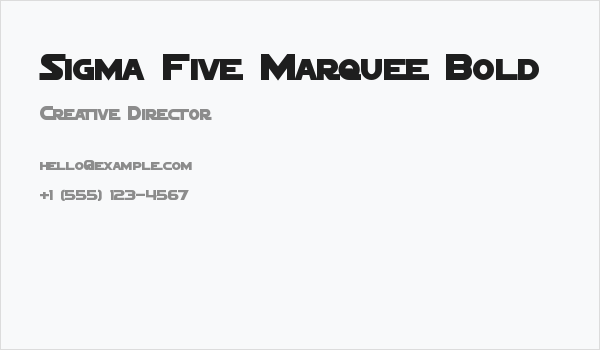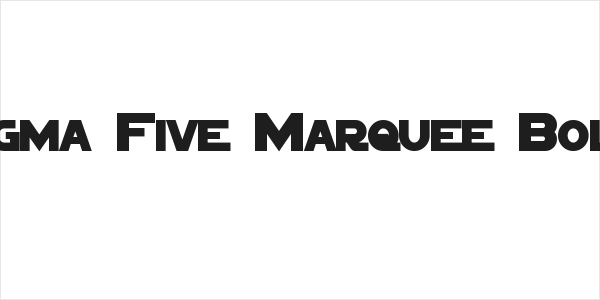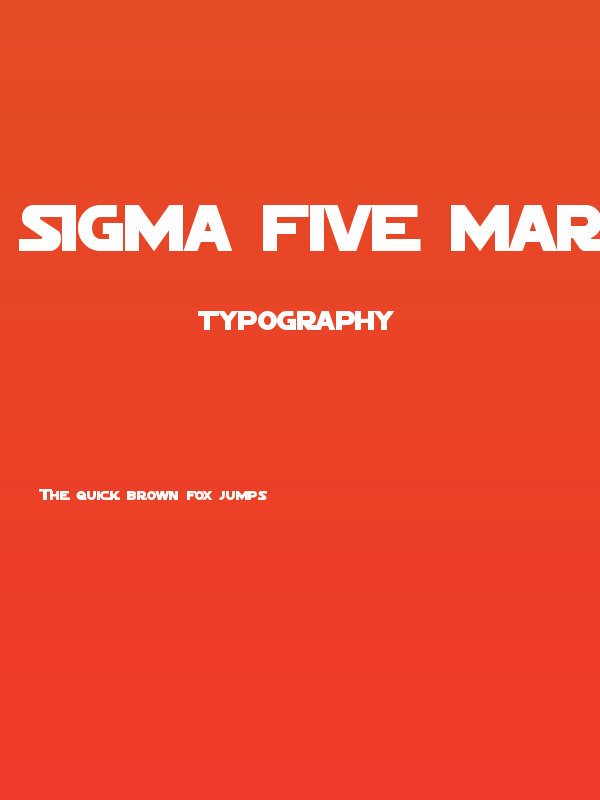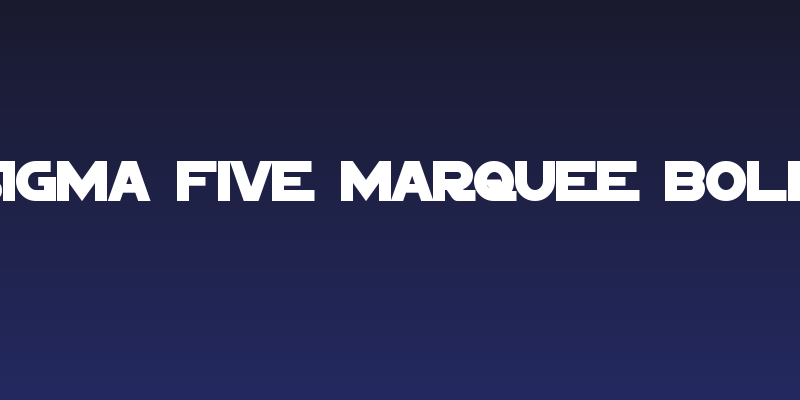
Sigma Five Marquee Bold Font
Sigma Five Marquee Bold Description
This font features a bold and striking design, characterized by its geometric and block-like letterforms. The characters are uniformly thick, with a consistent stroke width that gives the font a strong and impactful presence. The uppercase letters are particularly distinctive, with some incorporating unique cutouts or angles that add a futuristic and dynamic feel. The numbers and special characters maintain this bold style, ensuring a cohesive look across all glyphs. The font's design is modern and eye-catching, making it suitable for attention-grabbing headlines or branding projects that require a strong visual impact.